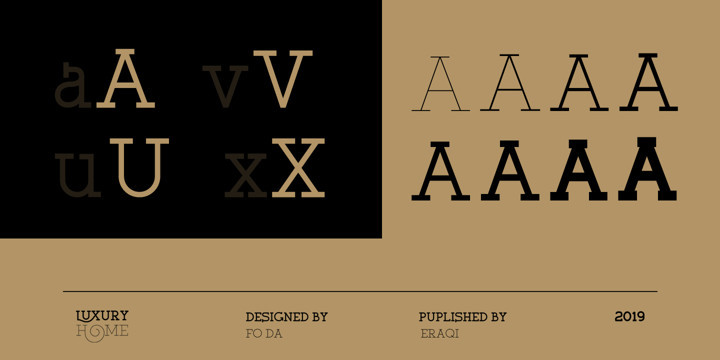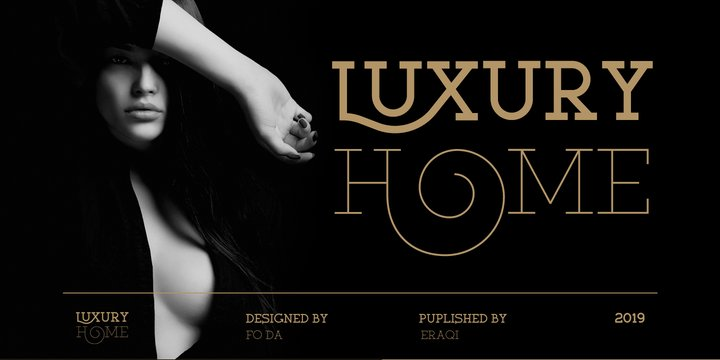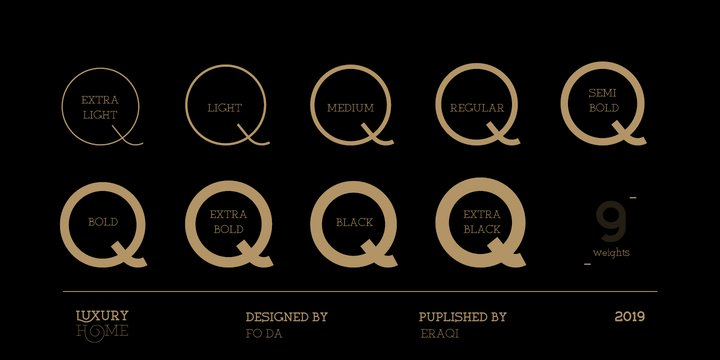
Luxury Home Font
“Luxury Home” is a slab serif typeface of 9 weights from Extra Light to Extra Black and can be used as both a headline and text face. “Luxury Home” is recommended for using in long-form writing and articles, since a serif is far more readable for longer passages of text.